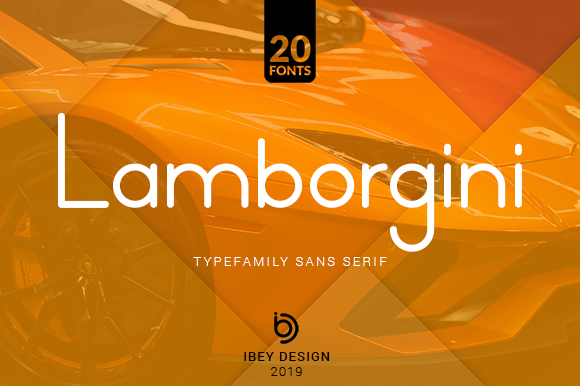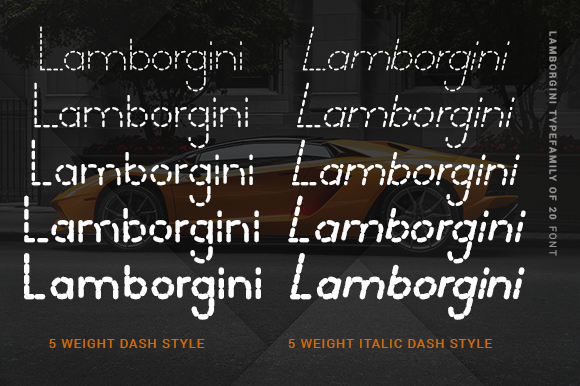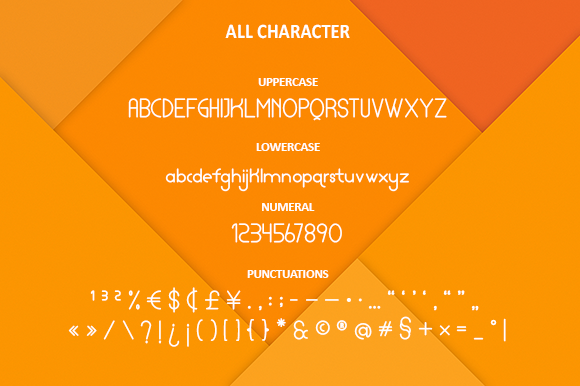
Lamborgini Font Family
The Lamborgini is a huge sans serif font family. It comes in 20 variations which are perfect for photography, watermarks, social media posts, advertisements, logos & branding, invitations, product designs, labels, stationery, product packaging, special events or anything that needs a powerful taste.